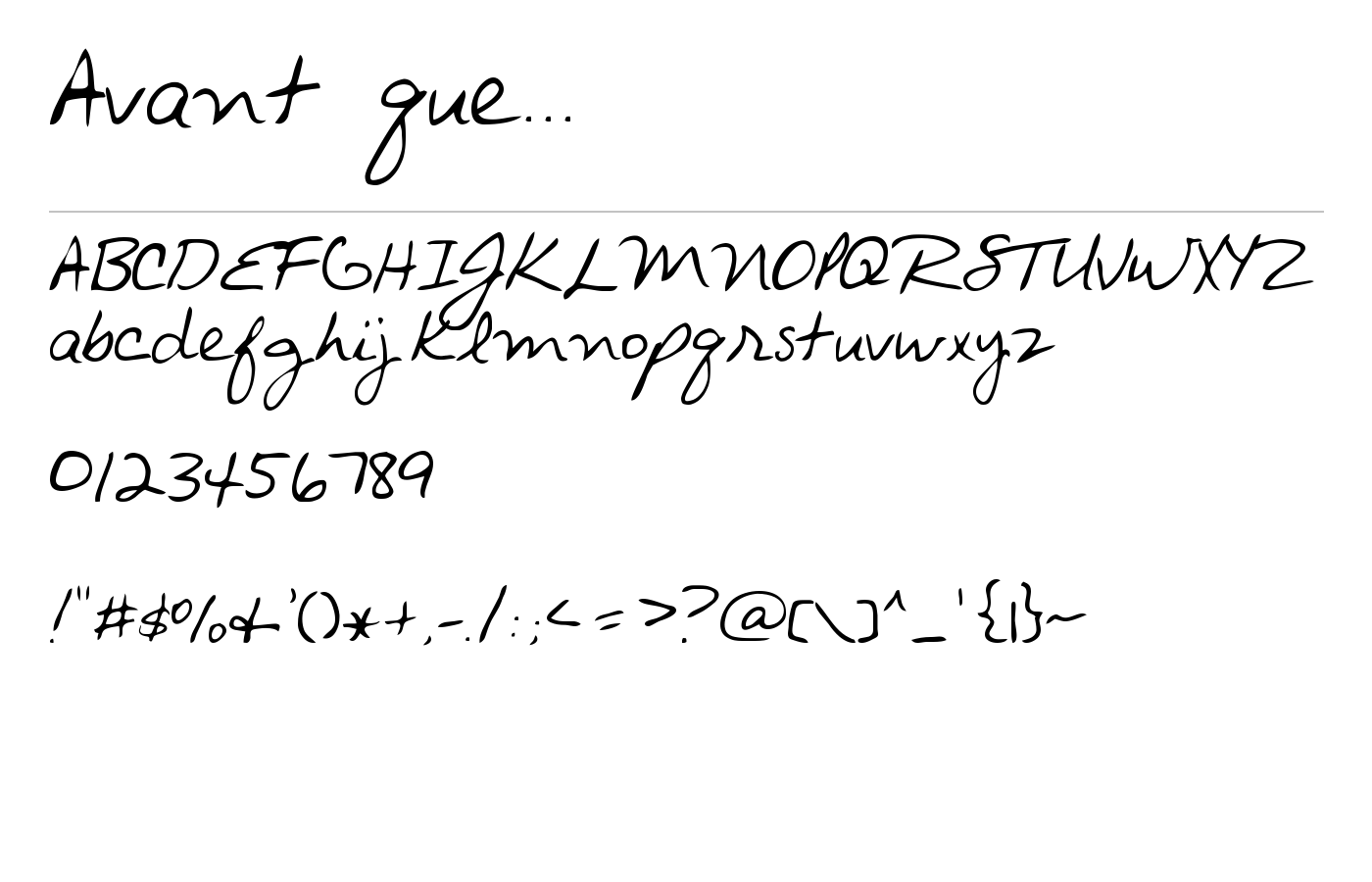
Avant que... is a casual, handwritten script font with a lively and personal feel, characterized by its flowing, slightly irregular letterforms and moderate contrast in stroke weight. Its natural, informal style makes it perfect for projects that want to convey warmth, creativity, and a touch of individuality, such as personal branding, greeting cards, or artistic designs. This font works well in headlines and short texts where a friendly, approachable tone is desired.
Avant que... Font
About Avant que... Font
| Font family | Avant que... Font |